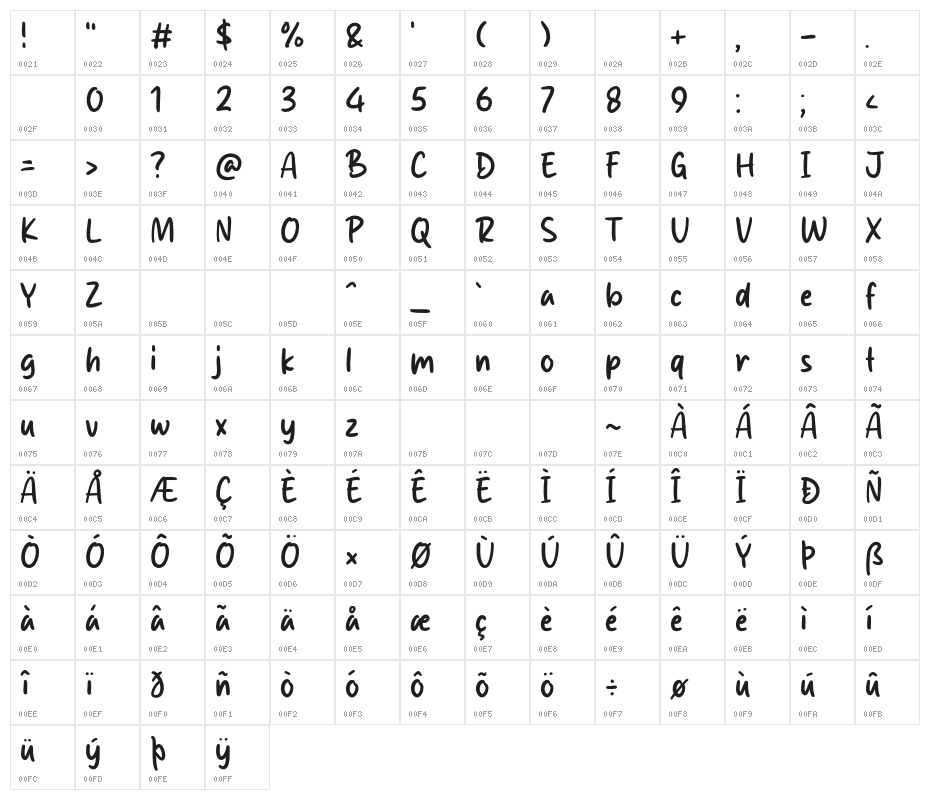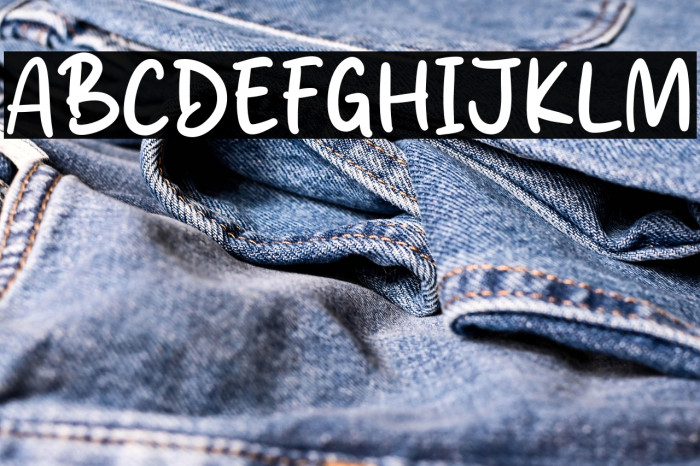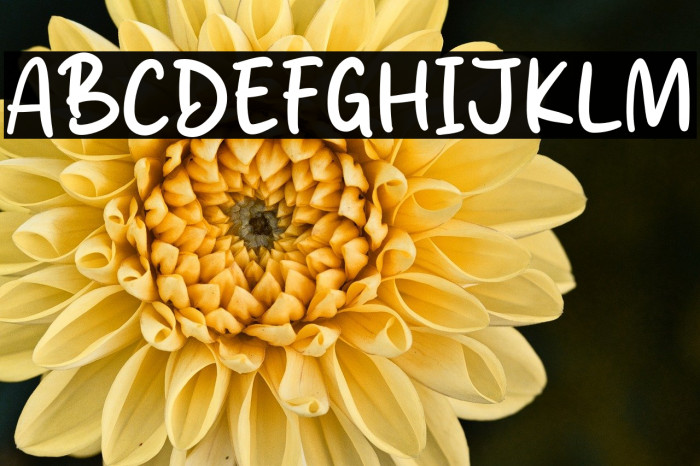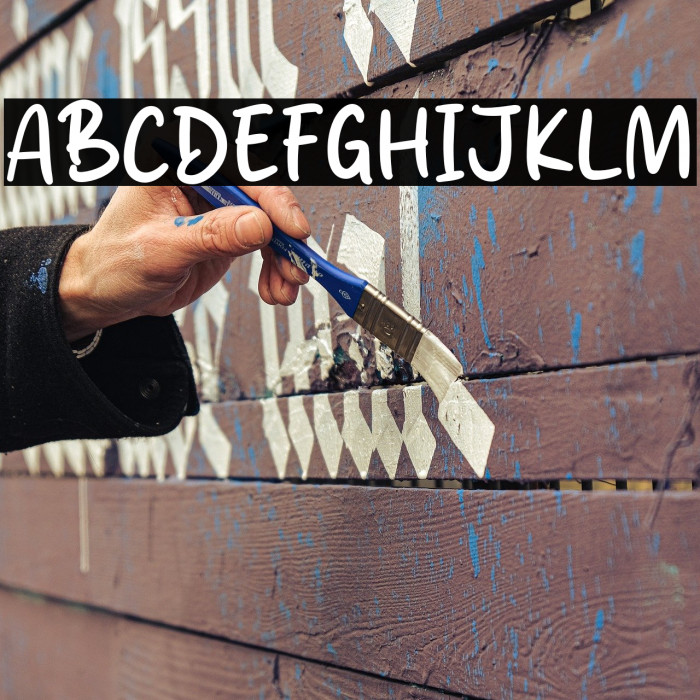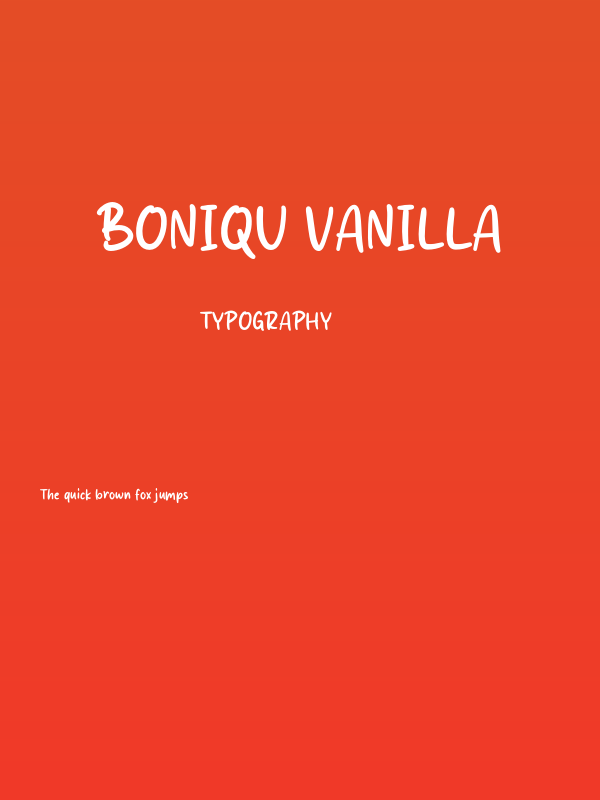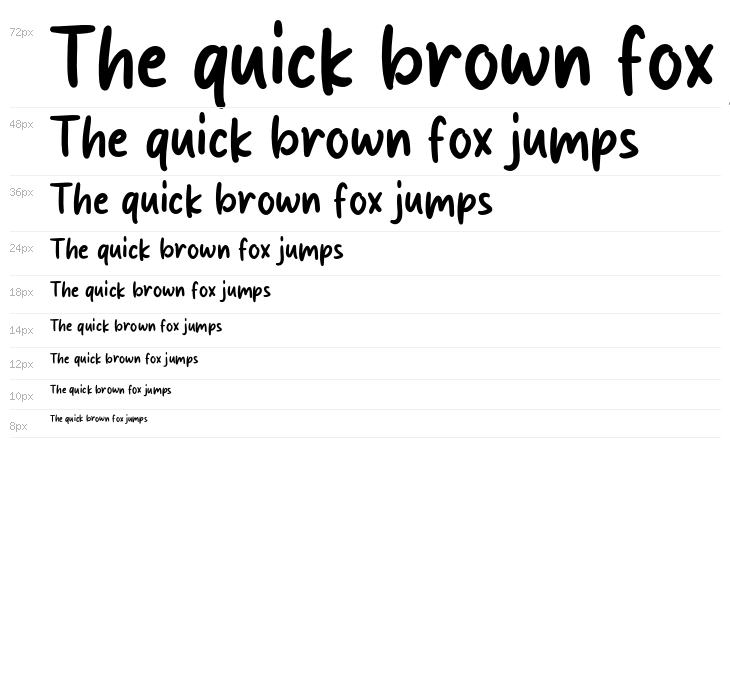
Boniqu Vanilla Font
Boniqu Vanilla Description
This font features a playful and informal handwritten style, characterized by its rounded and smooth letterforms. The strokes are consistent in thickness, giving it a uniform appearance. The uppercase and lowercase letters maintain a casual flow, while the numerals and special characters complement the overall aesthetic. Its friendly and approachable design makes it suitable for projects that require a personal touch.
| Use Case | Headlines, Informal text, Branding |
| Proposed Projects | Ideal for greeting cards, invitations, children's books, and casual branding projects. |